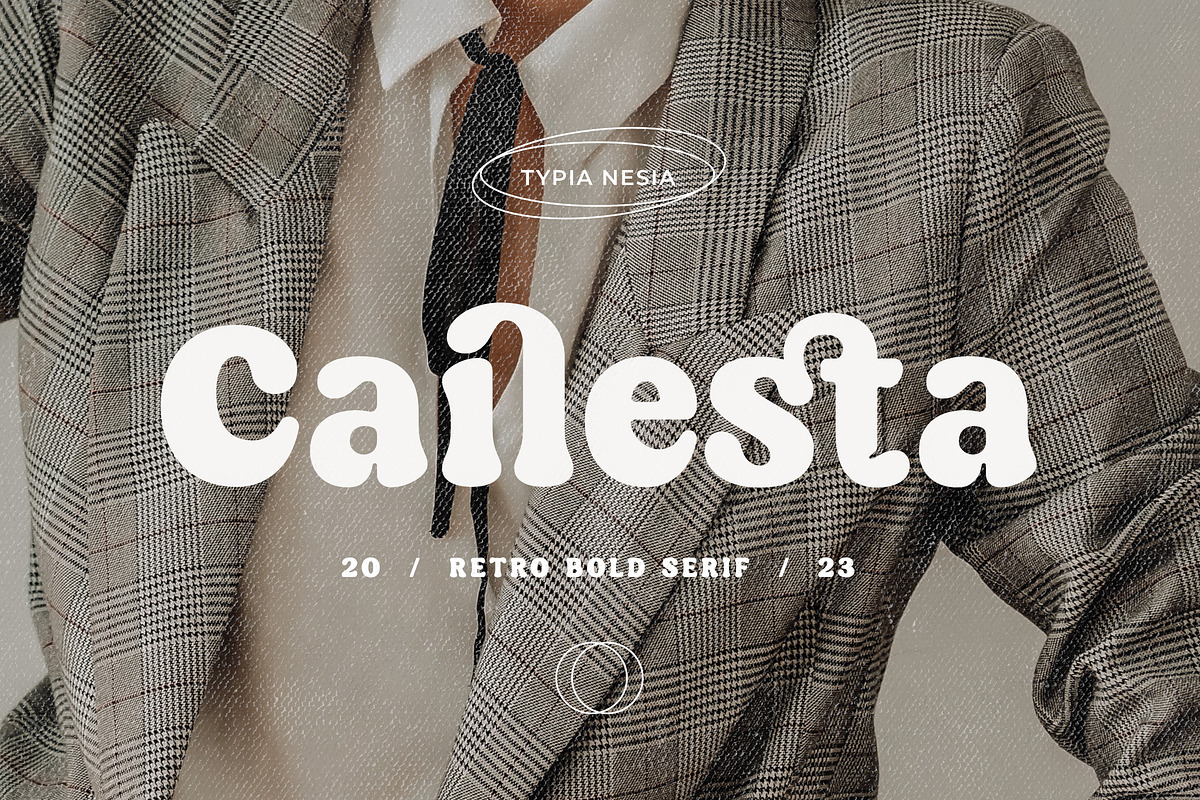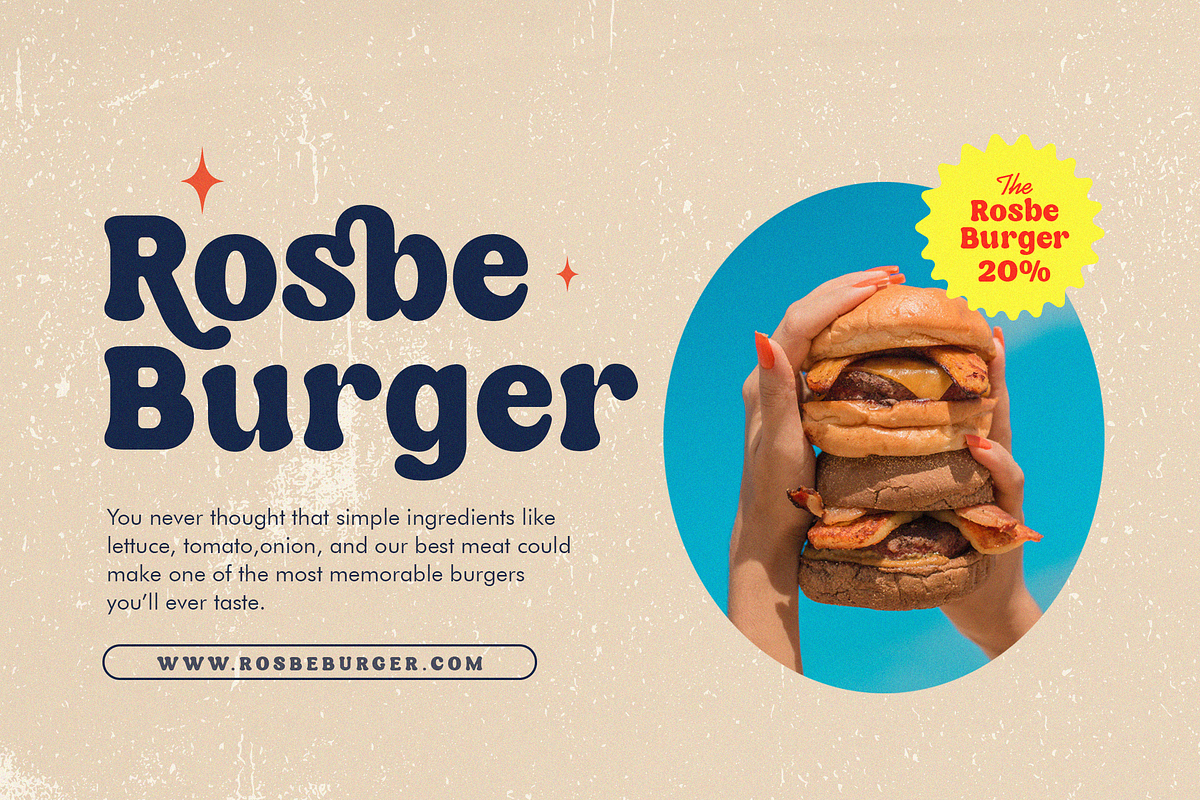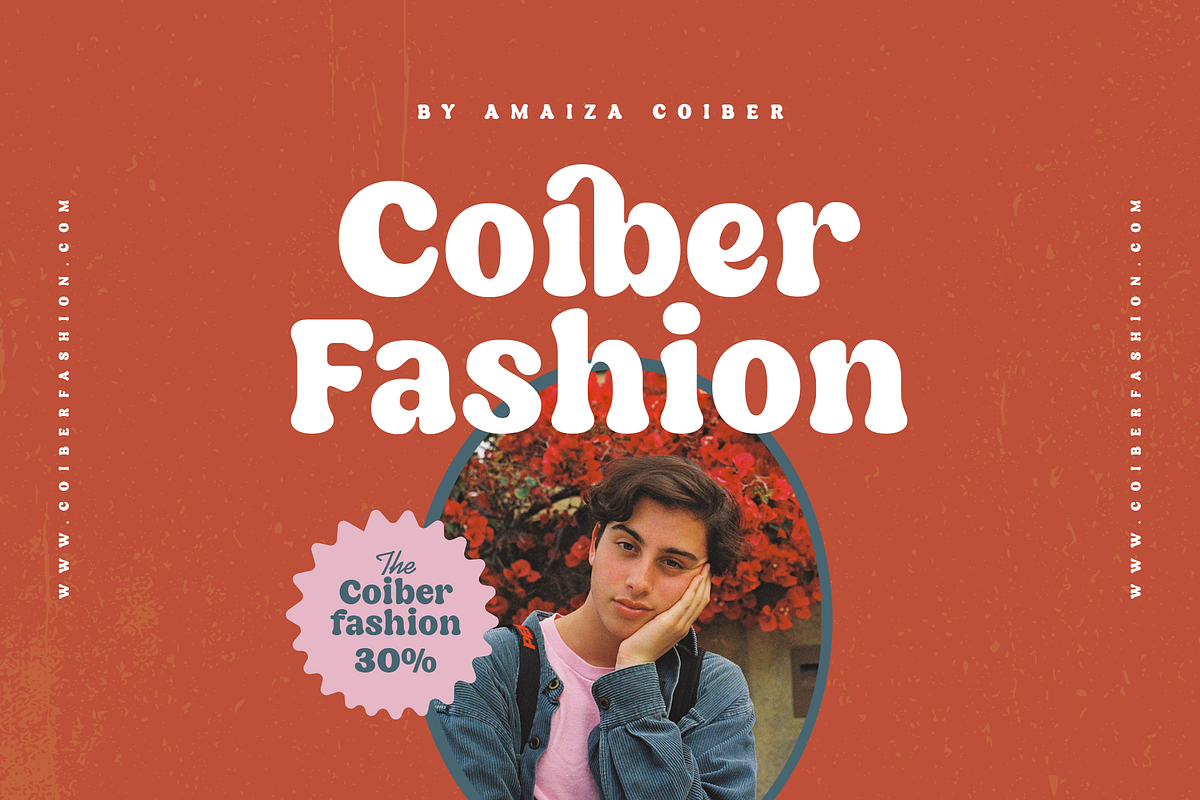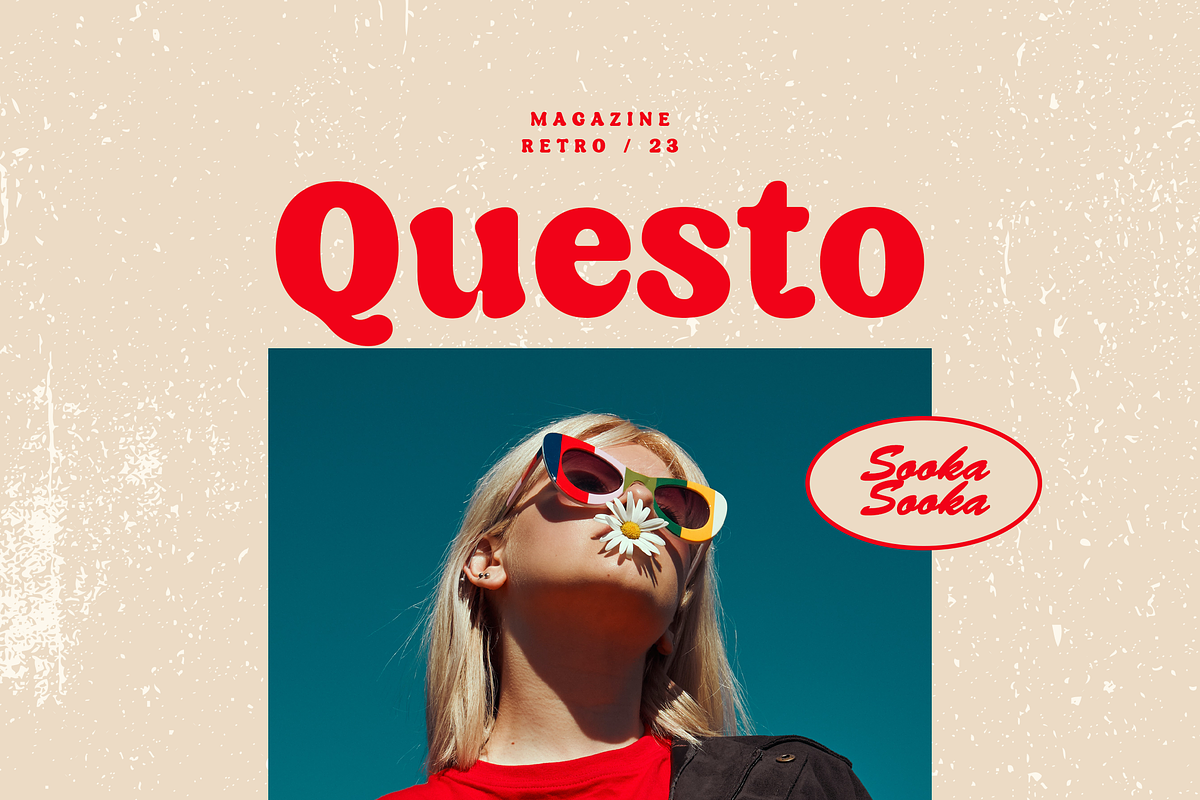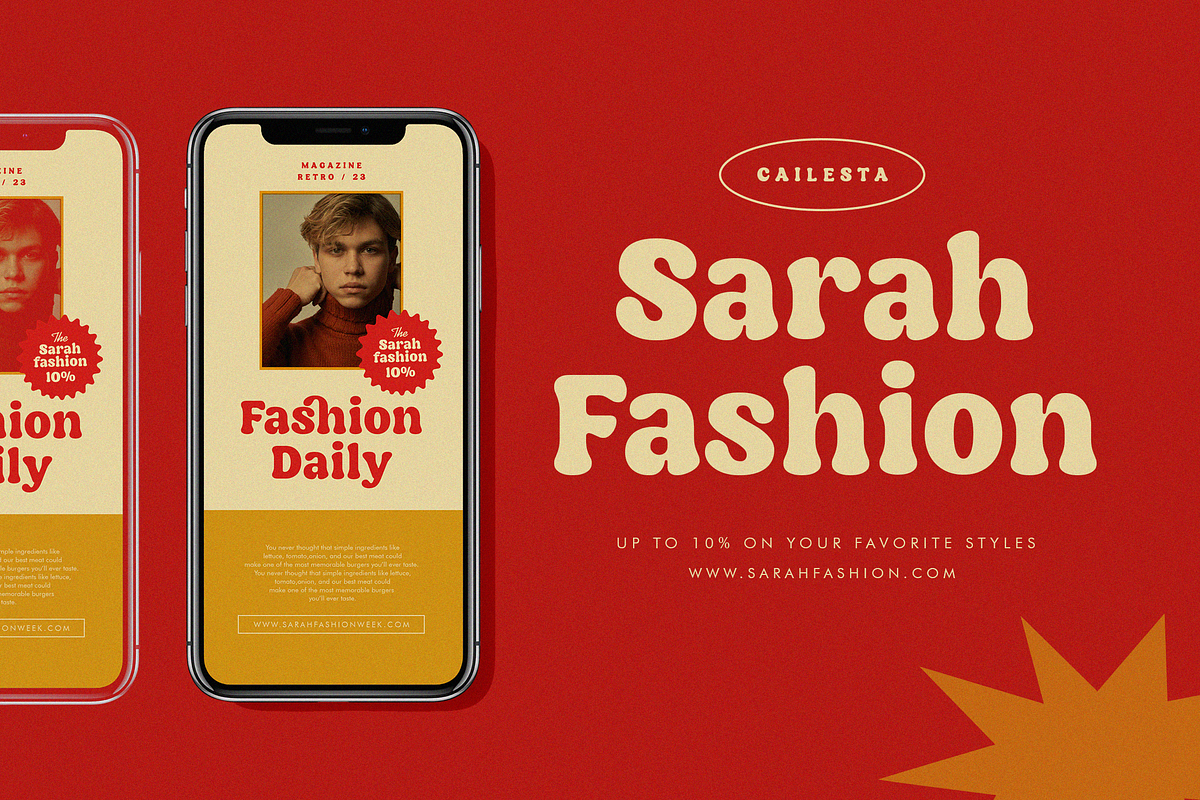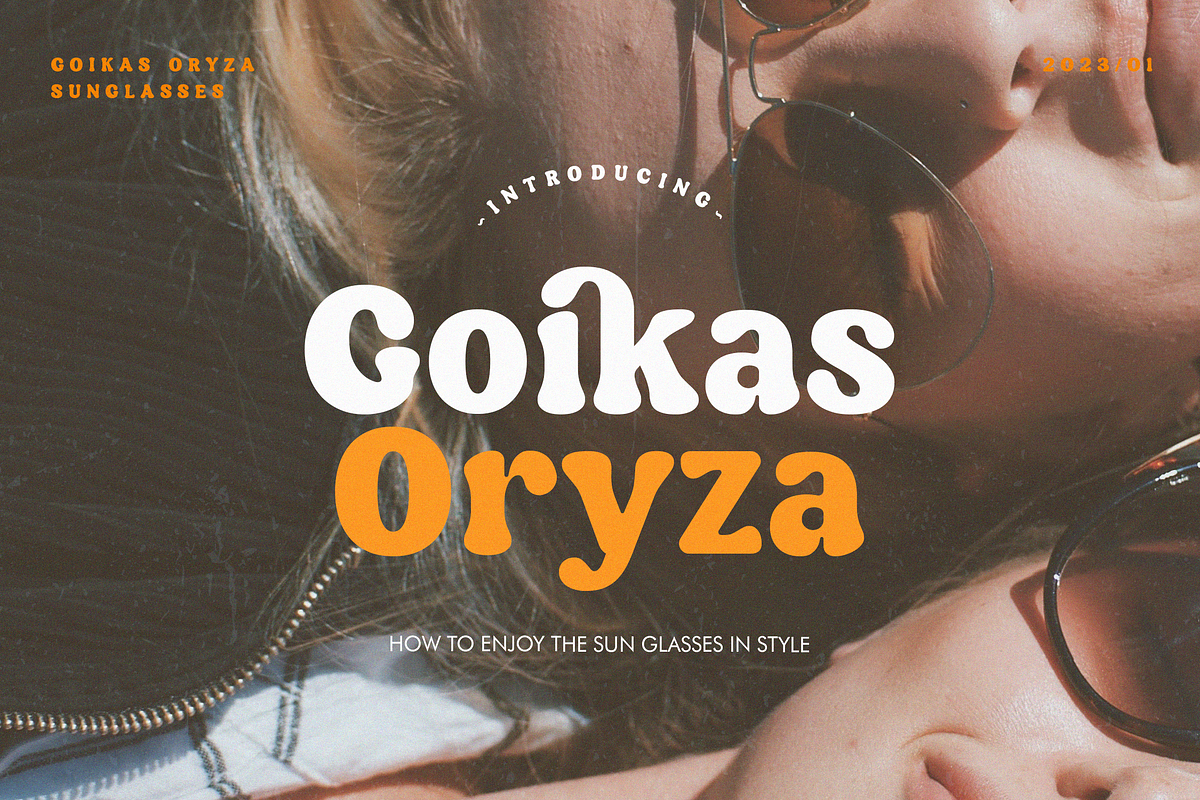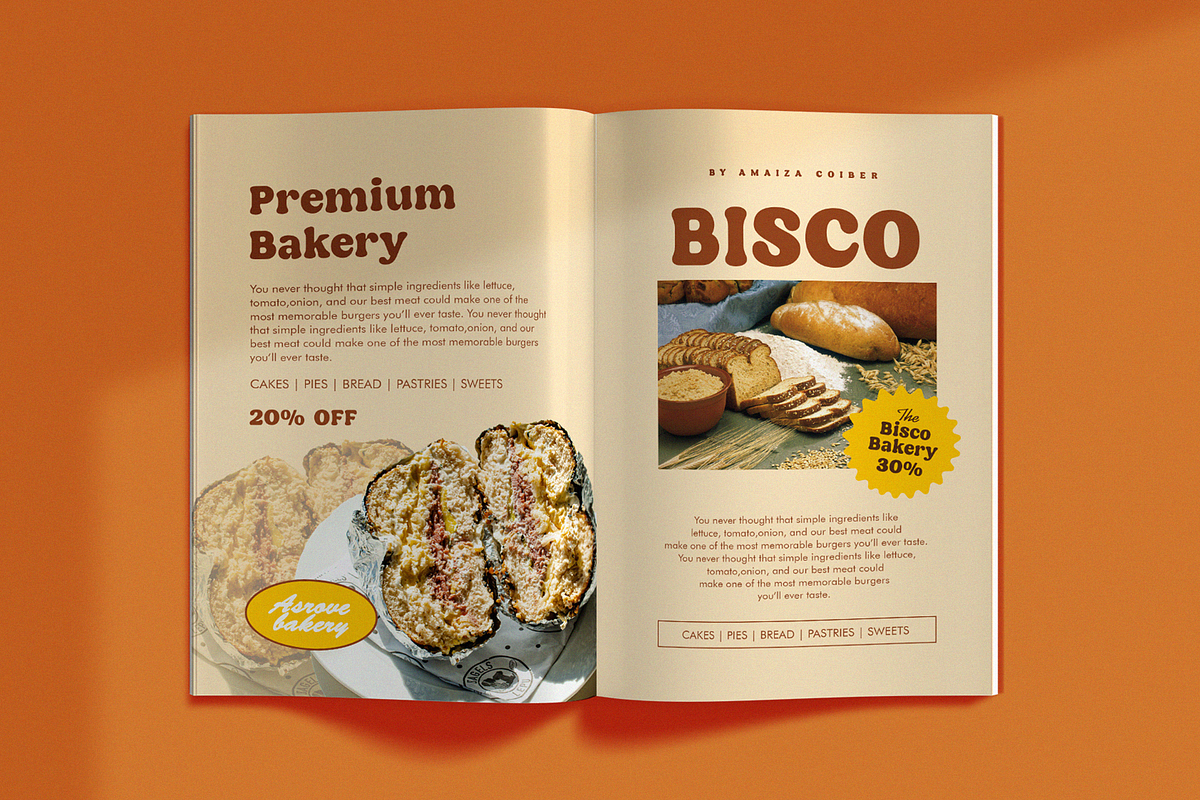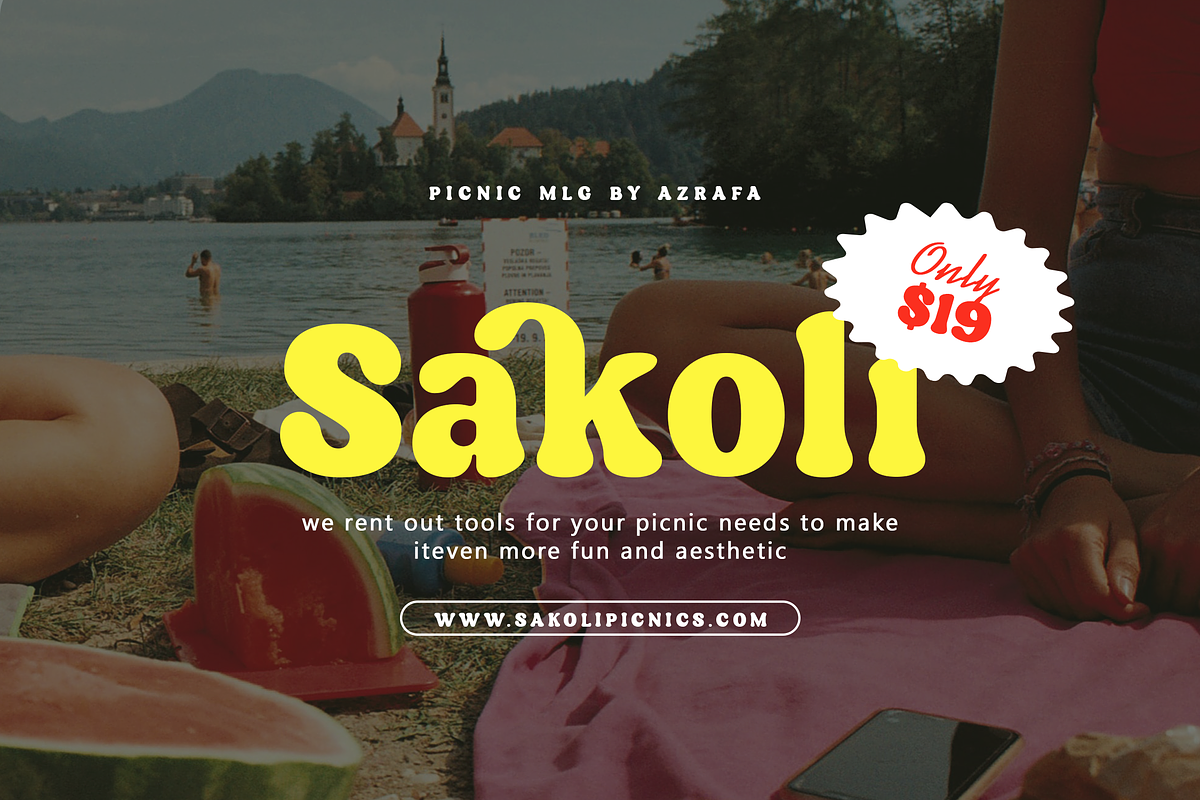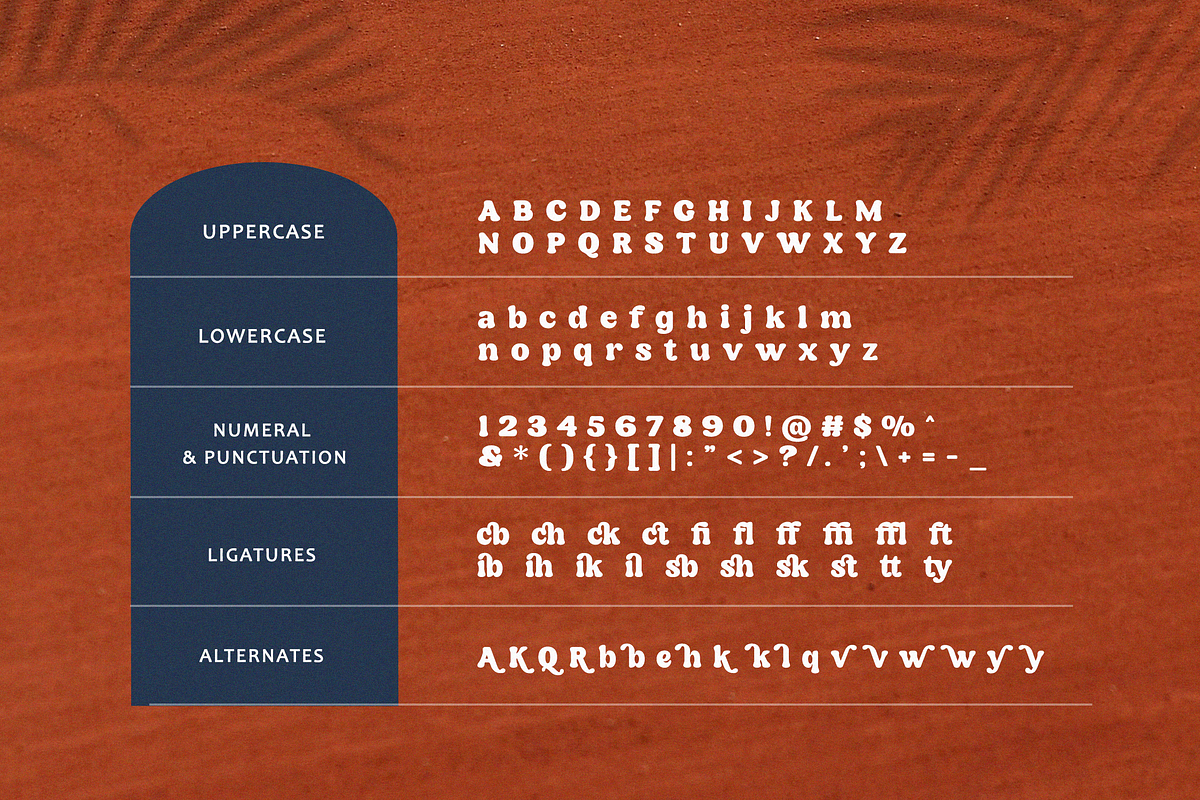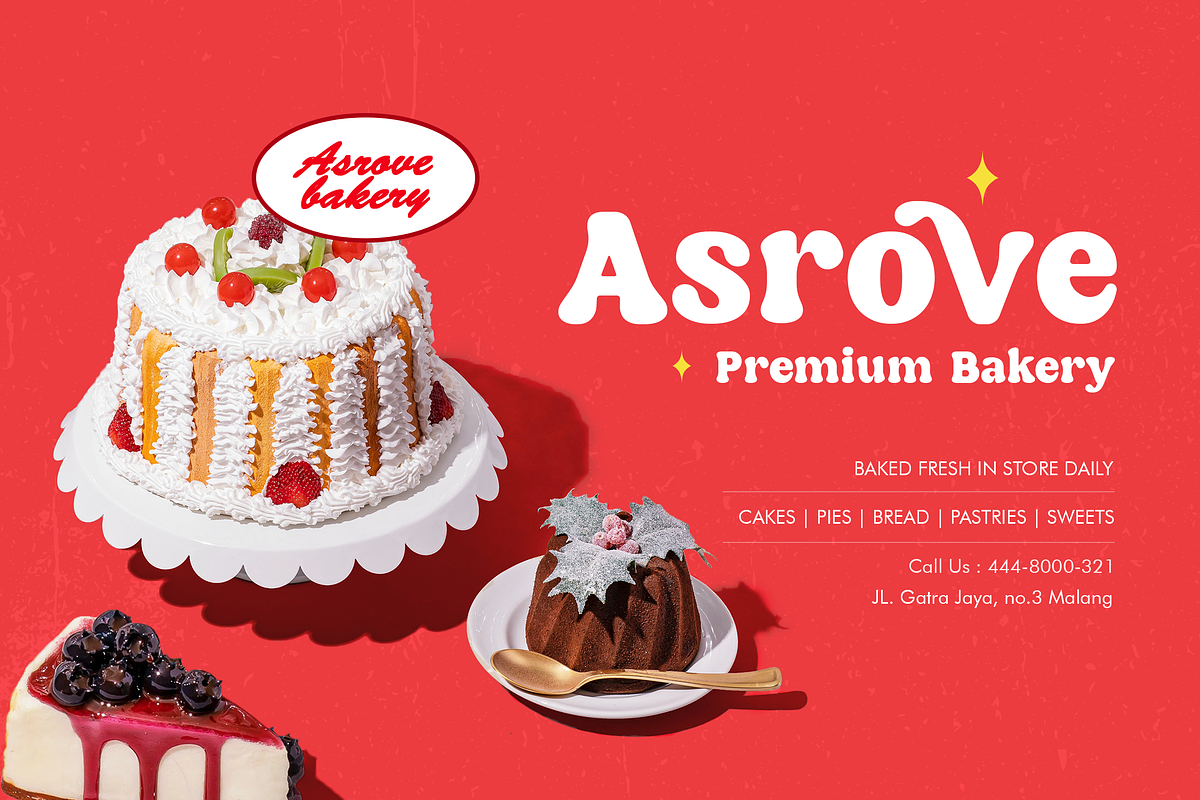
Cailesta
Cailesta - Classic Retro Display Serif - Summer Vintage Chubby Bold Font
Cailesta comes with some alternates and ligatures, so you can combine it to make a perfect typography design. Suitable for any design needs : logo, branding, modern advertising design, vintage garage design, adventure / mountain hiking brand, hardcore music, animation or movie, logos, retro summer poster quote, book / novel cover Title, editorial design, website / blog, card, and any typography needs.